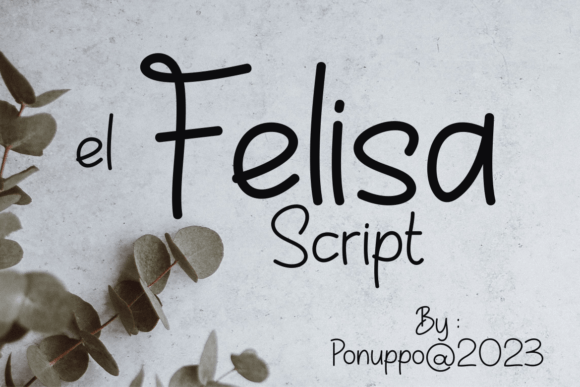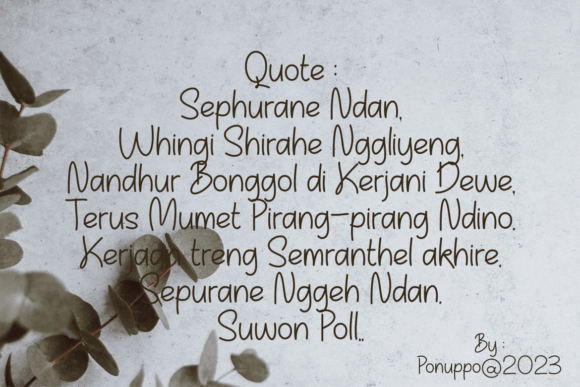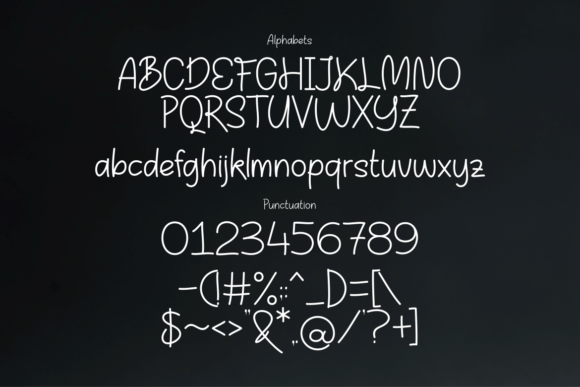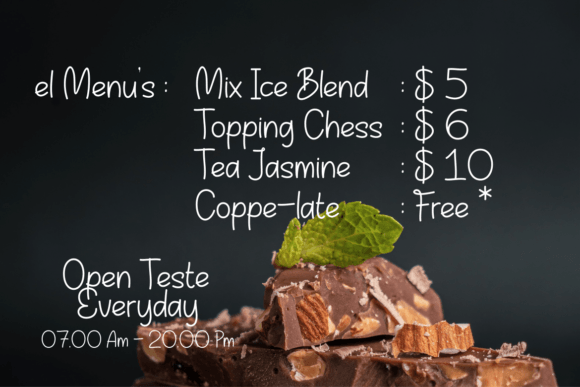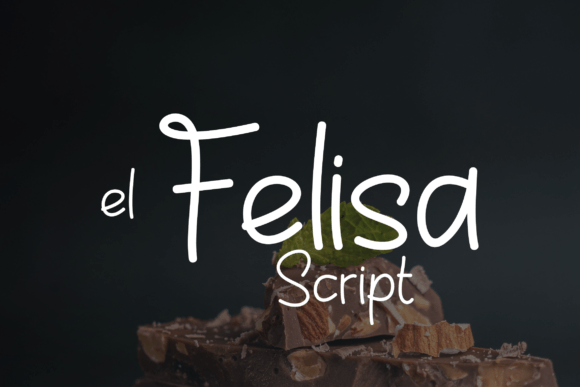
Introducing EL Felisa Font: The Sweet and Friendly Handwritten Font for Your Creative Projects
Are you a designer, crafter, or DIY enthusiast looking for a font that can add a personal touch to your creative projects? Look no further than EL Felisa Font, a sweet and friendly handwritten font that is perfect for a wide range of designs. With its natural and unique style, EL Felisa is incredibly versatile and can be used for everything from greeting cards and invitations to branding and packaging.
The Characteristics of EL Felisa Font
EL Felisa Font is a handwritten font that exudes warmth and friendliness. Its natural and unique style makes it stand out from more traditional fonts, and its sweet and playful vibe is sure to capture the attention of your audience. The font features:
- Unique and natural style: EL Felisa Font has a distinct, hand-crafted feel that sets it apart from more generic fonts.
- Sweet and friendly tone: The font has a warm and approachable tone that is perfect for designs that require a personal touch.
- Highly versatile: EL Felisa Font can be used for a wide range of designs, from digital projects to print materials.
What Can You Use EL Felisa Font For?
The possibilities are endless with EL Felisa Font! Its versatility and charm make it suitable for a variety of creative projects, including:
- Greeting cards and invitations: Add a personal touch to your cards and invites with EL Felisa’s sweet and friendly style.
- Branding and packaging: Use EL Felisa Font to create unique and eye-catching branding and packaging for your products.
- Digital projects: EL Felisa Font is perfect for digital projects such as social media graphics, blog posts, and website designs.
- Crafting and DIY projects: Add a personal touch to your crafting and DIY projects, such as handmade jewelry, candles, and home decor.
Why Choose EL Felisa Font?
With so many fonts to choose from, why should you choose EL Felisa Font for your creative projects? Here are just a few reasons:
- Unique style: EL Felisa Font has a unique and natural style that will set your designs apart from the rest.
- Easy to read: Despite its handwritten style, EL Felisa Font is easy to read and understand, making it perfect for body text and headlines.
- Time-saving: With EL Felisa Font, you can create professional-looking designs in no time, saving you time and effort.
Tips for Using EL Felisa Font
To get the most out of EL Felisa Font, here are a few tips to keep in mind:
- Use it with contrasting colors: EL Felisa Font looks best when paired with contrasting colors that make it stand out.
- Experiment with different sizes: Try using EL Felisa Font in different sizes to create visual interest and hierarchy in your designs.
- Pair it with other fonts: EL Felisa Font pairs well with other fonts, so don’t be afraid to experiment with different combinations.
| Font Name | El Felisa Font |
| Author | ponuppo |
In conclusion, EL Felisa Font is a sweet and friendly handwritten font that is perfect for designers, crafters, and DIY enthusiasts. Its natural and unique style makes it incredibly versatile, and its warm and approachable tone is sure to capture the attention of your audience. With its ease of use and flexibility, EL Felisa Font is a great addition to any creative project. So why wait? Give EL Felisa Font a try today and see the difference it can make in your designs!